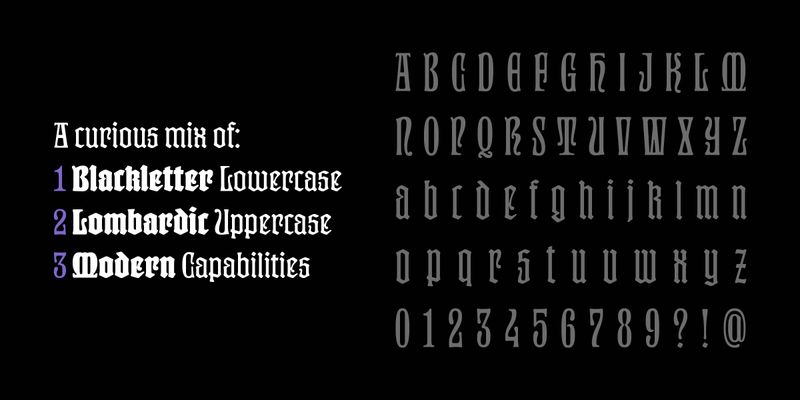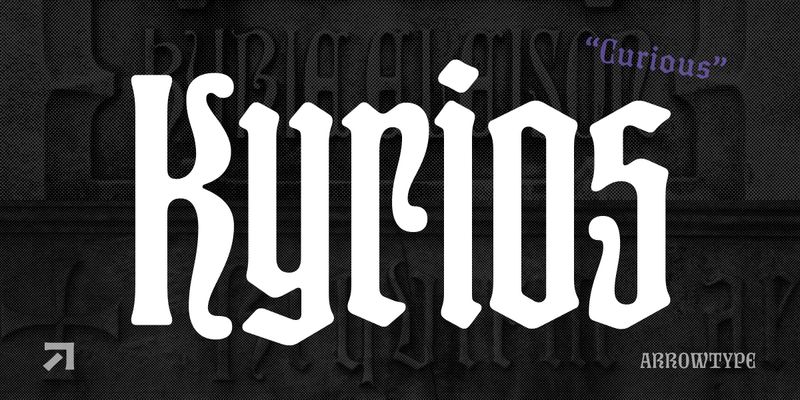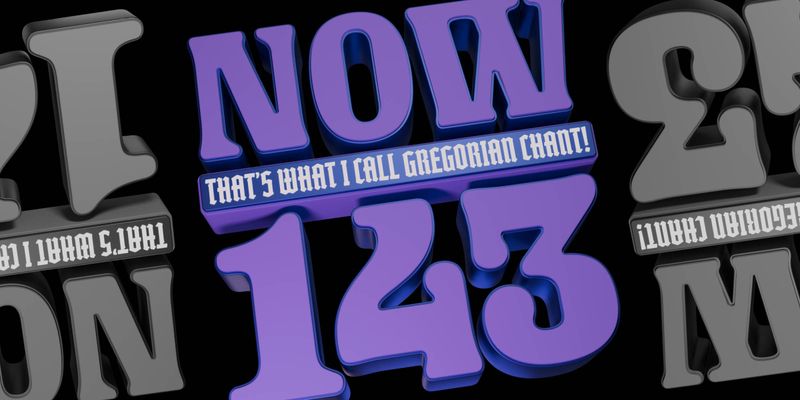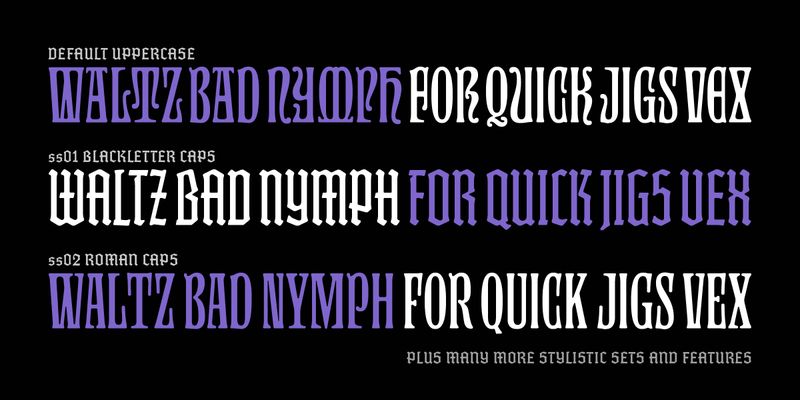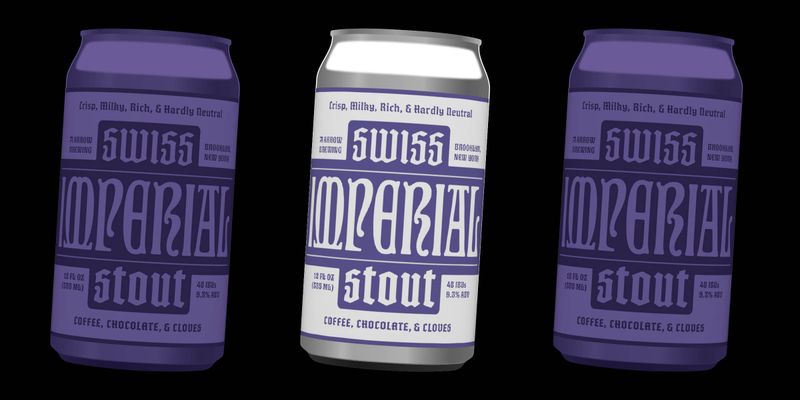
Kyrios is a curious, slightly psychedelic blackletter family. Though it may seem like a modern idea, it is an interpretation of lettering from a grave monument which was created in the late 1800s for the Green-Wood Cemetery in Brooklyn, NY.
This family is a study in contrasts – not just of form and counterform, but of history and aesthetics. It pairs geometric simplicity with Art Nouveau curves and a blackletter lowercase with a Lombardic uppercase. It includes a rich system of OpenType features to deliver even more range, including alternate blackletter and Roman uppercases. Kyrios comes in a range of optical sizes, from a narrow, striking Display to a surprisingly readable Text with proportions and letterforms that are more familiar to modern readers. Despite these juxtapositions – or because of them – Kyrios delivers a harmonious visual palette and offers far more utility than most display typefaces.